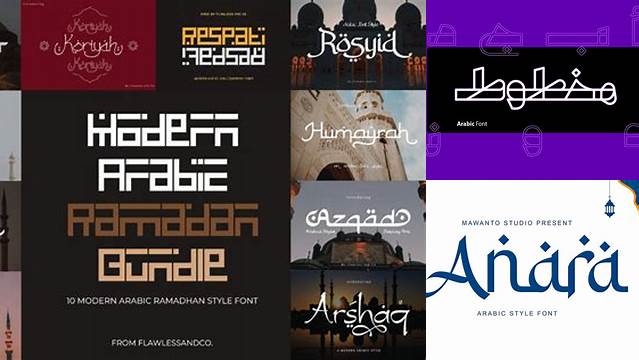
Are you on the hunt for some stunning Arabic fonts to spice up your design projects, guys? Well, you've landed in the right spot! We're diving deep into the world of Arabic typography, with a focus on getting you those premium fonts without emptying your wallet. That's right, we're talking about Arabic premium fonts free download options that will seriously elevate your creative game. Let's get this party started and explore how you can access these beautiful typefaces and make your designs pop!
The Allure of Arabic Fonts in Design
First things first, why are Arabic fonts so cool? Well, for starters, Arabic calligraphy is a rich art form. The flowing scripts and intricate designs add a touch of elegance, sophistication, and cultural depth that's hard to beat. Using the right Arabic font can transform a simple design into something truly captivating. It’s like giving your work a touch of magic! Whether you're working on a branding project, designing a website, creating social media graphics, or putting together a print ad, incorporating Arabic fonts can make your work stand out from the crowd. They are a powerful way to connect with a vast audience and celebrate a rich cultural heritage. Arabic fonts are perfect for projects that aim to convey a sense of heritage, spirituality, or artistic flair. They are also super effective in creating a sense of luxury and exclusivity. The versatility of Arabic fonts is impressive, ranging from modern and minimalist styles to traditional and ornate designs. This means you can find the perfect font to match any design aesthetic, ensuring that your project aligns with the message you are trying to communicate. Selecting the right font is vital in any design endeavor because it influences how the audience perceives the brand or project. It goes beyond aesthetics, affecting readability and visual appeal. The correct font can strengthen your branding, make the text look better, and improve the user's overall experience. Therefore, when integrating Arabic fonts into your work, make sure to choose options that are readable and also reflect the essence of your project. Arabic fonts can bring your designs to the next level, providing a distinctive look that’s both visually stunning and culturally significant.
Where to Find Free Arabic Fonts
Key Considerations When Choosing an Arabic Font
Choosing the right font is crucial for the success of your design. Arabic fonts are no exception! Here are some key considerations to keep in mind:
- Readability: Ensure the font is easy to read, especially in long paragraphs or small sizes. Choose a font that balances beauty with functionality.
- Style and Tone: Consider the message you want to convey. A modern, clean font might be perfect for a tech company, while a more traditional script could suit a historical project. Match the font's style to your project's overall vibe.
- Versatility: Look for fonts with multiple weights and styles. This gives you flexibility in your designs. A font family that includes bold, italic, and regular versions is a huge plus.
- Character Set: Confirm the font supports the characters you need. Make sure it includes all the necessary diacritics and symbols for your specific language or dialect. This ensures your text looks professional and correct.
- Context: Consider the context in which the font will be used. A font that works well on a website might not look great in print, and vice versa. Think about where your design will be displayed.